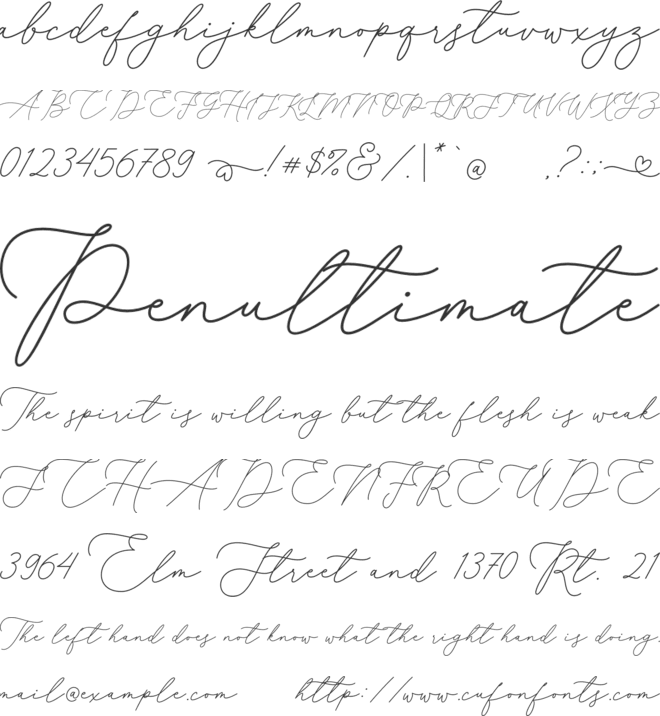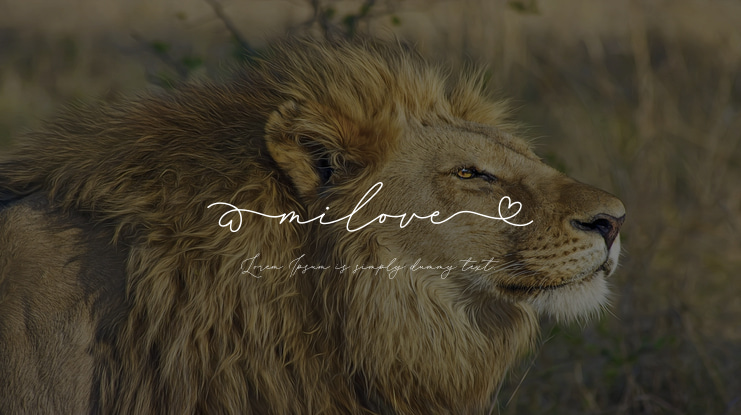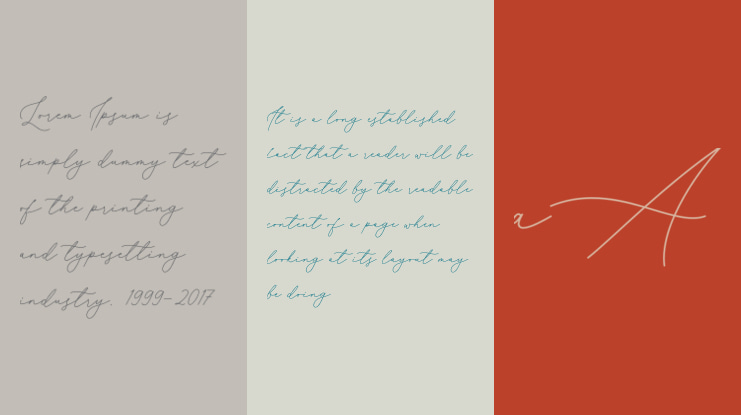
milove Font
Ef Studio - Luthfi Fauzi
Features : Beginning and ending swashes
There are 3 styles of swashes you will get : 1. Type ( before a word to get beginning lovely swashes and type ) to get ending lovely swashes
2. Type { before a word to get beginning long swashes and type } to get ending long swashes
3. Type [ before a word to get beginning rotate swashes and type ] to get ending rotate swashes